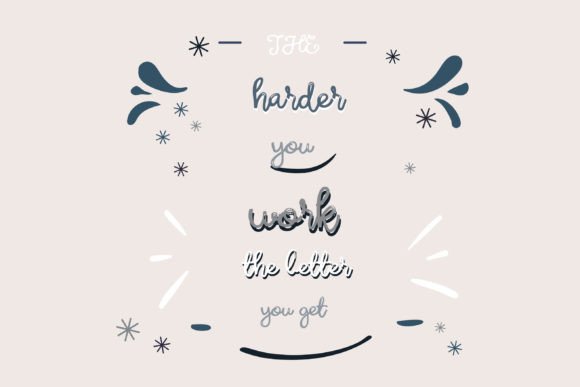
Bigshot Font
This hand-written font is a casual cursive with a bouncy baseline. Three weights, a stenciled version and two highlighted versions included.A hand-crafted font is a font that is designed to look like it was written by hand. It is often used for invitations, greeting cards, and other items. Handwritten fonts can be either formal or informal, and they can be used for a variety of purposes.Some of the characteristics of handwritten fonts include: The letters are not perfectly uniform in size or shape.There may be slight variations in the spacing between letters and words.The font may have a “wiggly” or “squiggly” appearance.The font may be difficult to read at small sizes.Handwritten fonts can be a great way to add a casual touch to your designs. They can also be used to create a sense of nostalgia or whimsy. However, it is important to choose a handwritten font that is appropriate for the project you are working on. A formal handwritten font may not be appropriate for a casual invitation, while an informal handwritten font may not be appropriate for a corporate document.